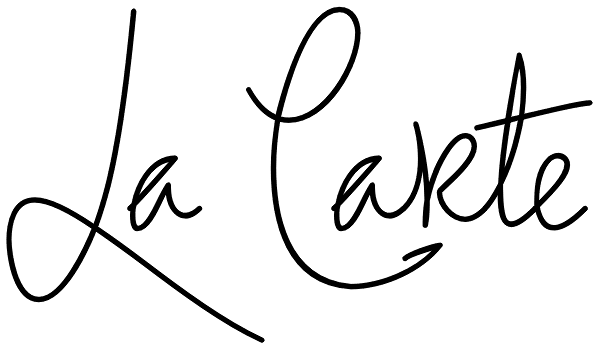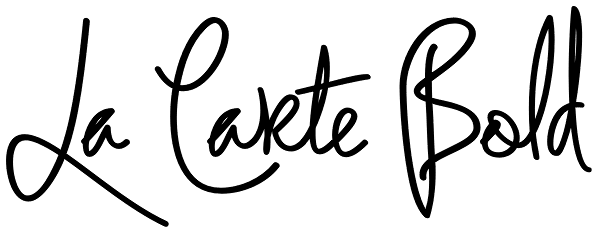
La Carte
Inspired by a series of handwritten menus produced in 1980, La Carte is a stylish but legible script that sets as well in body copy as it does in headlines.